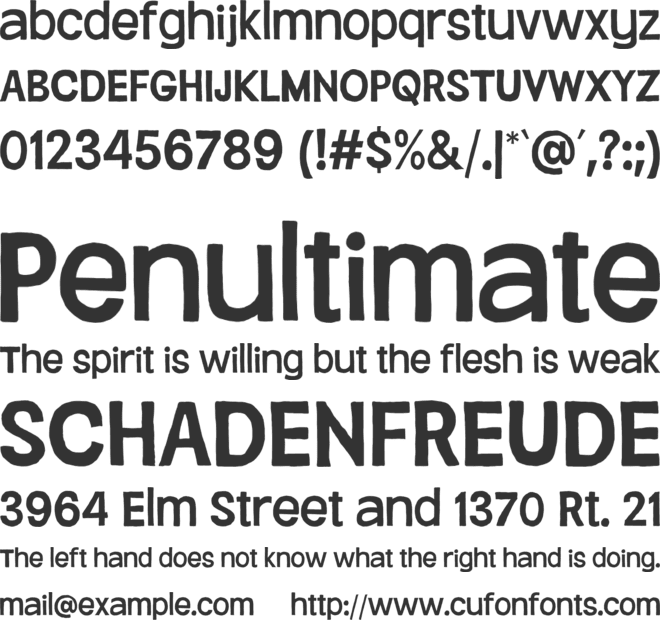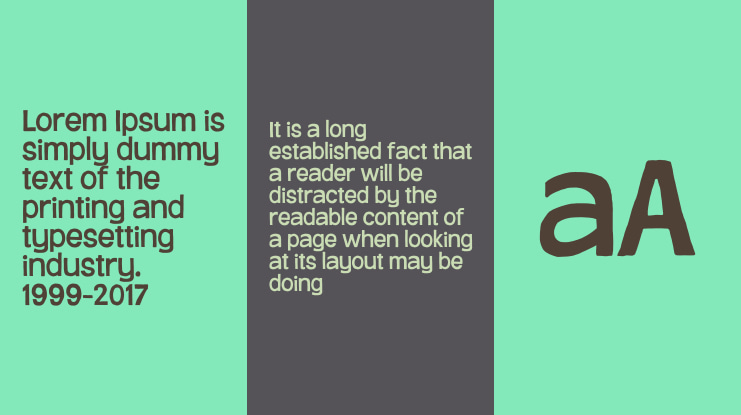
Rolly Pulfy Font
Make it bold or keep it playful—giving you full creative control while maintaining a cohesive, modern look. Add personality to your typography.